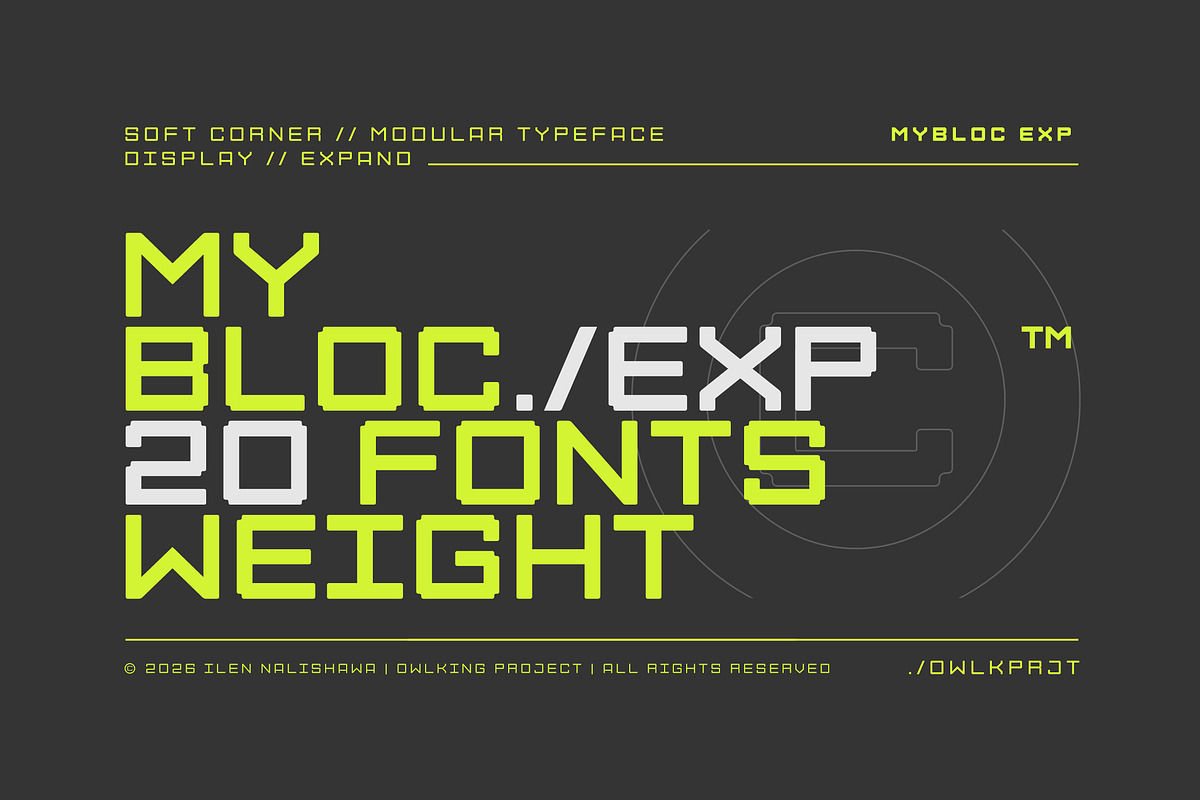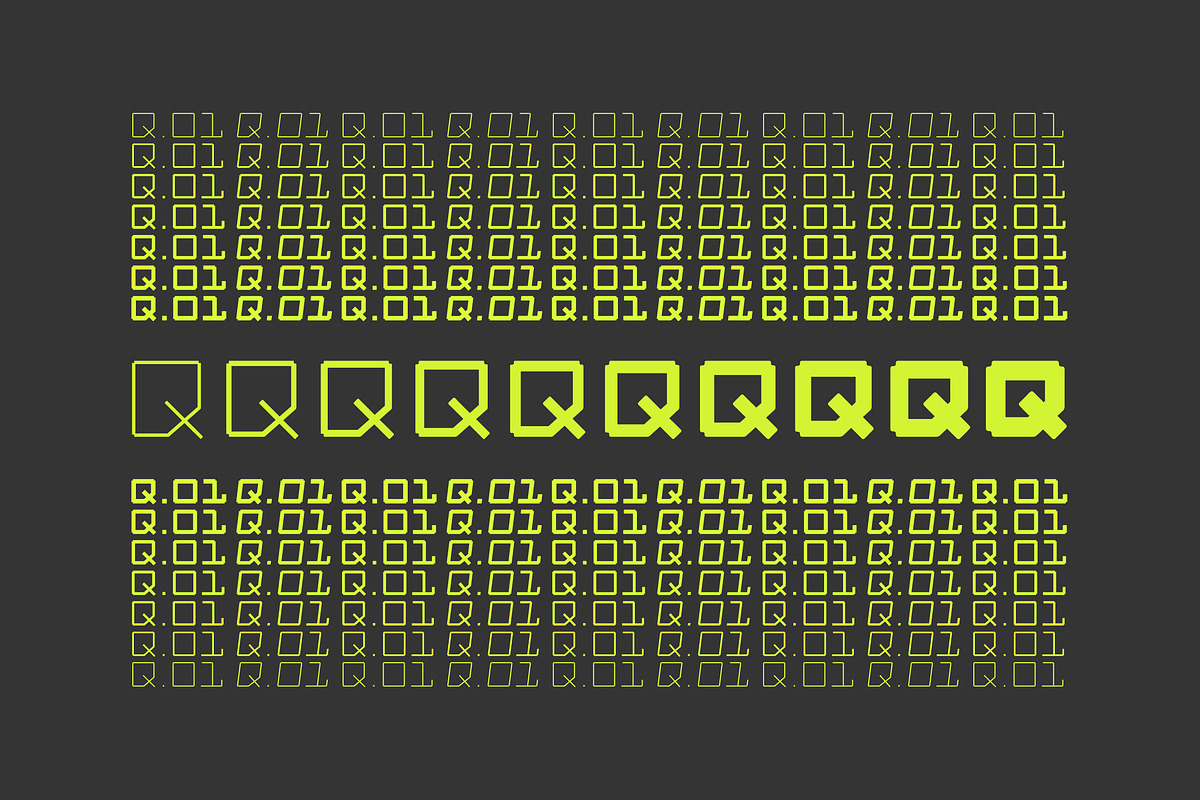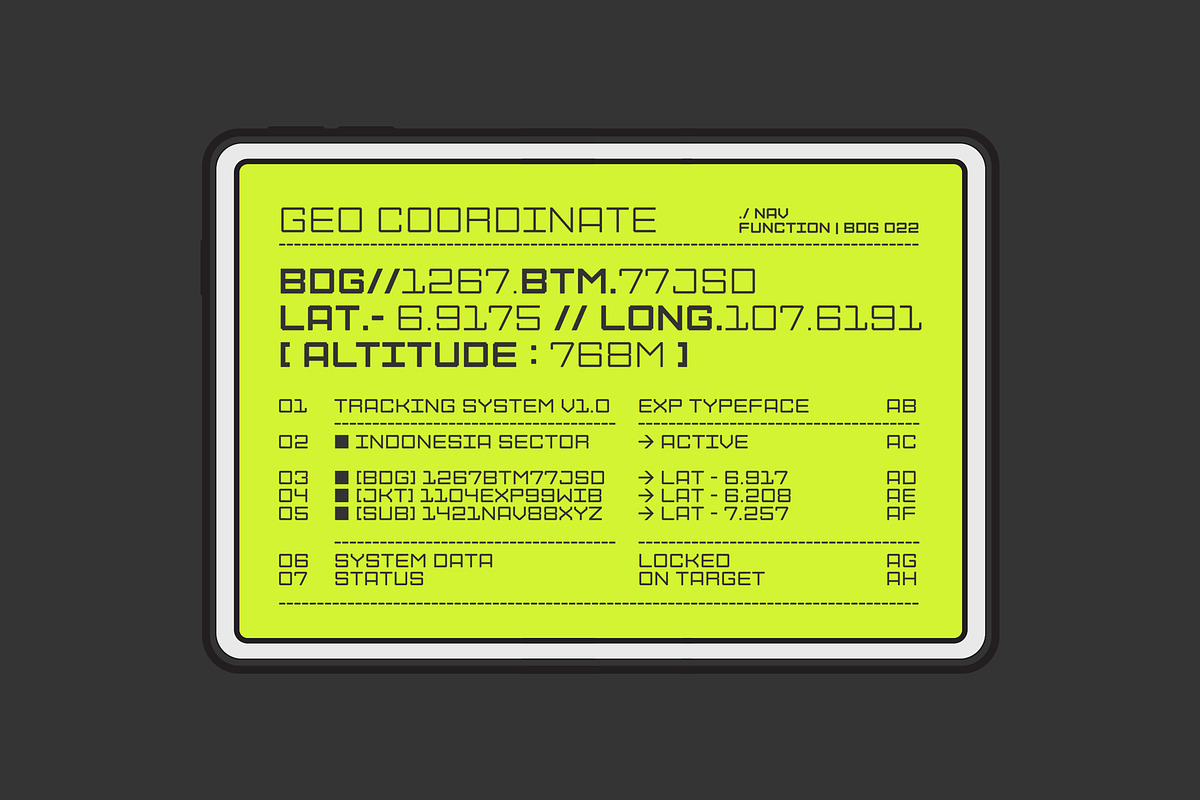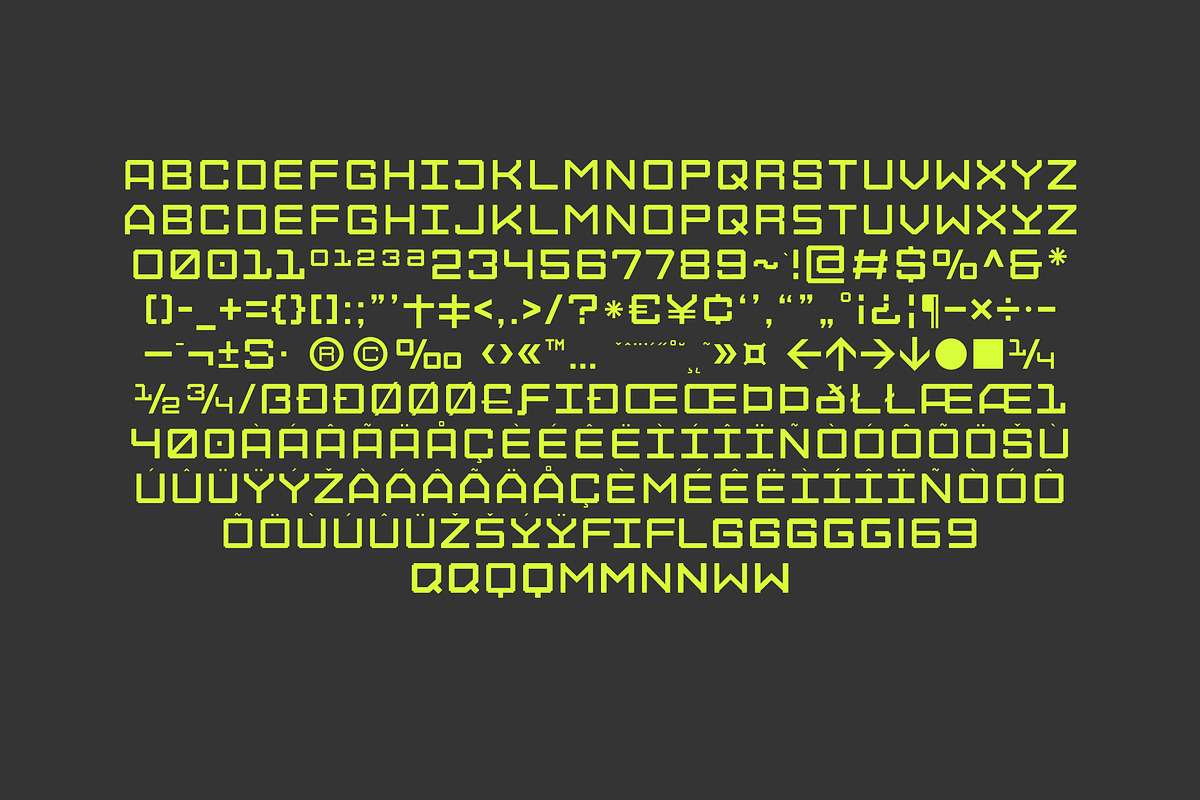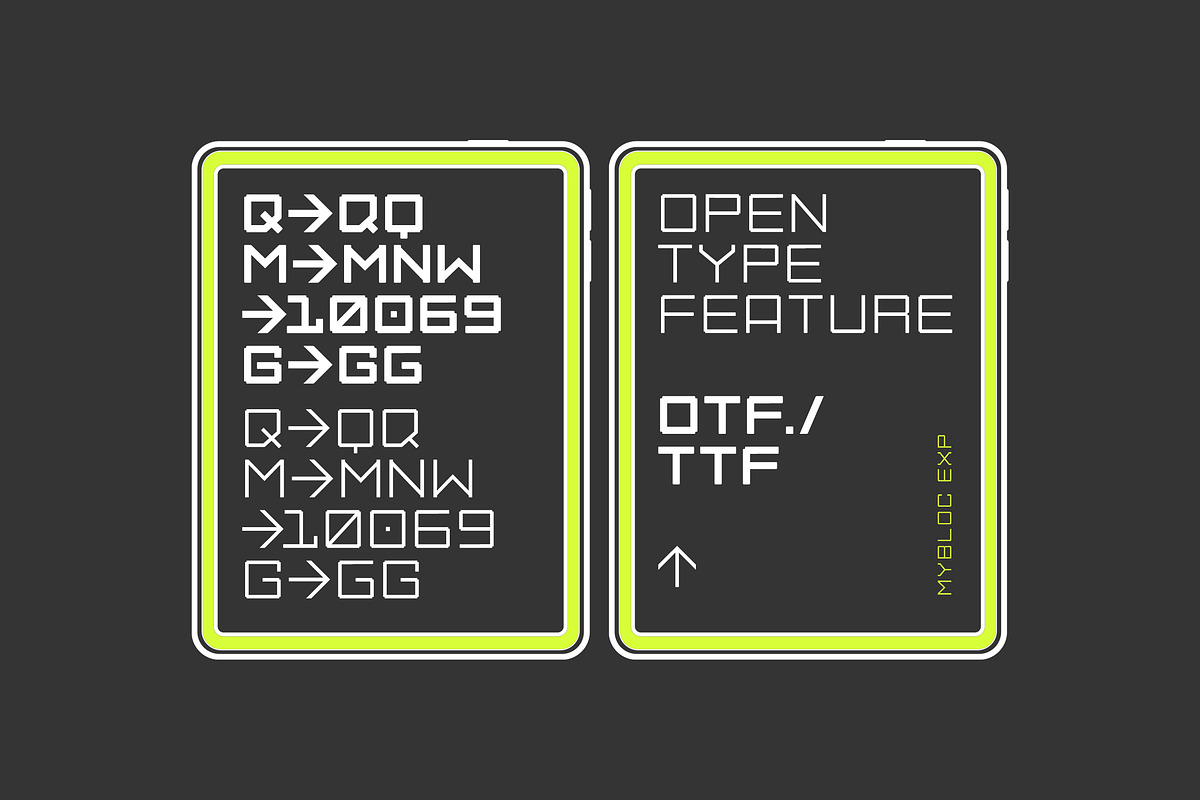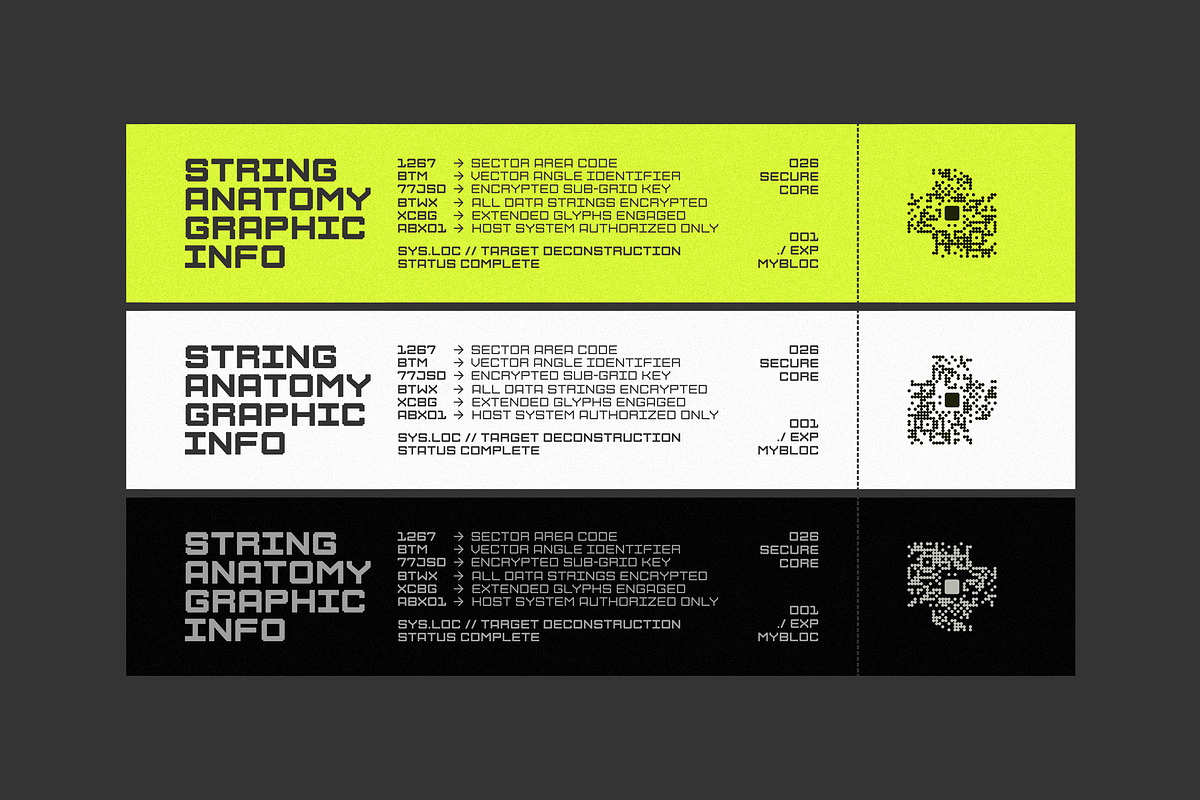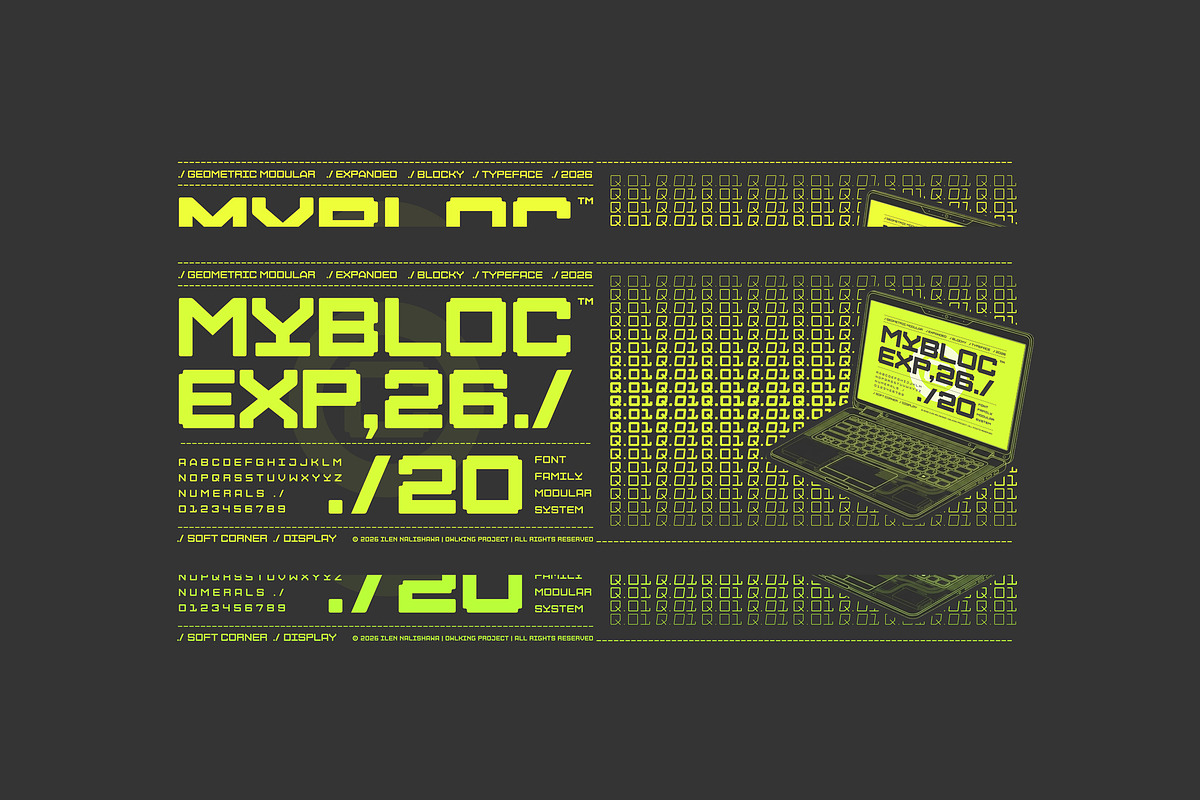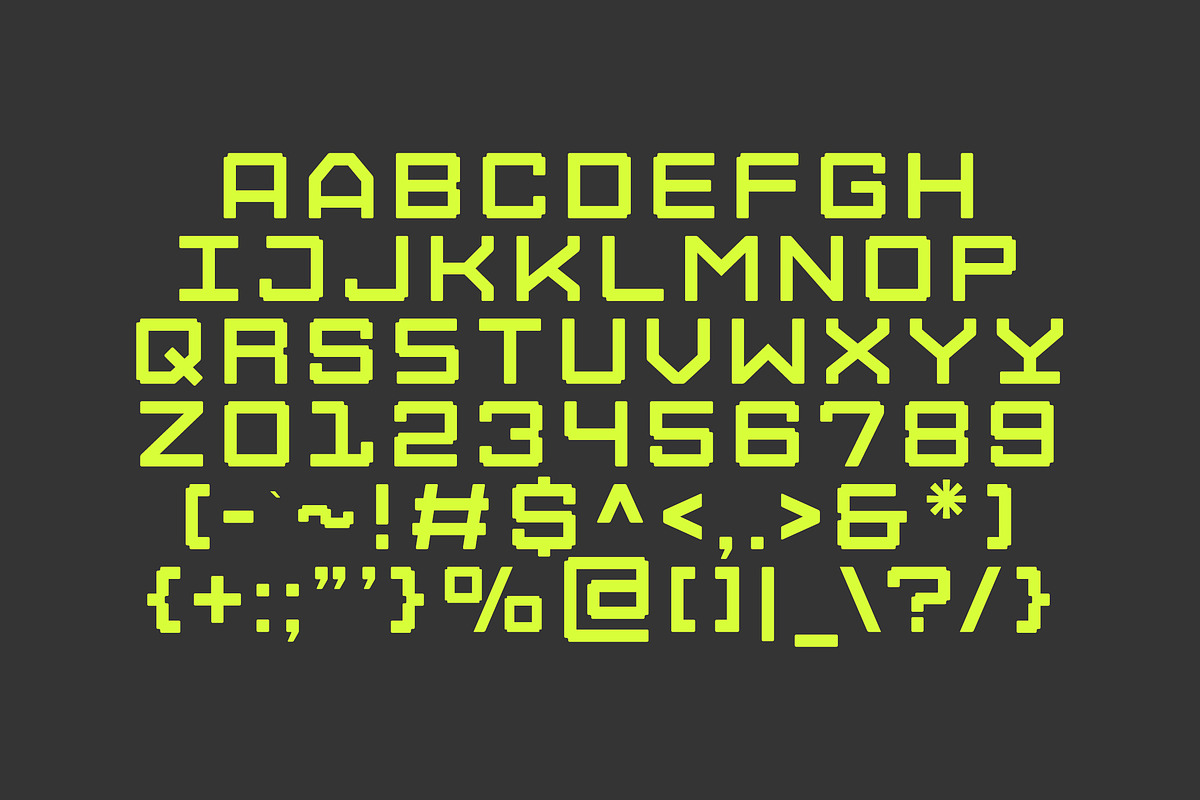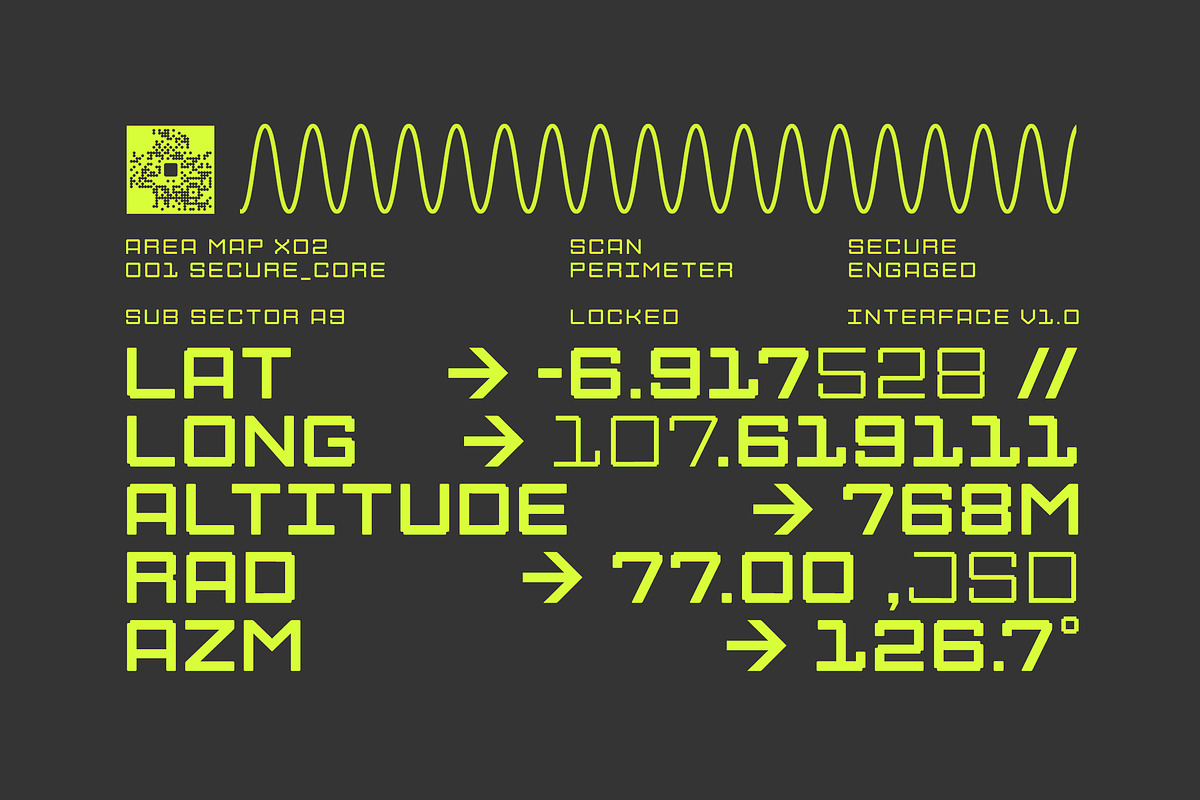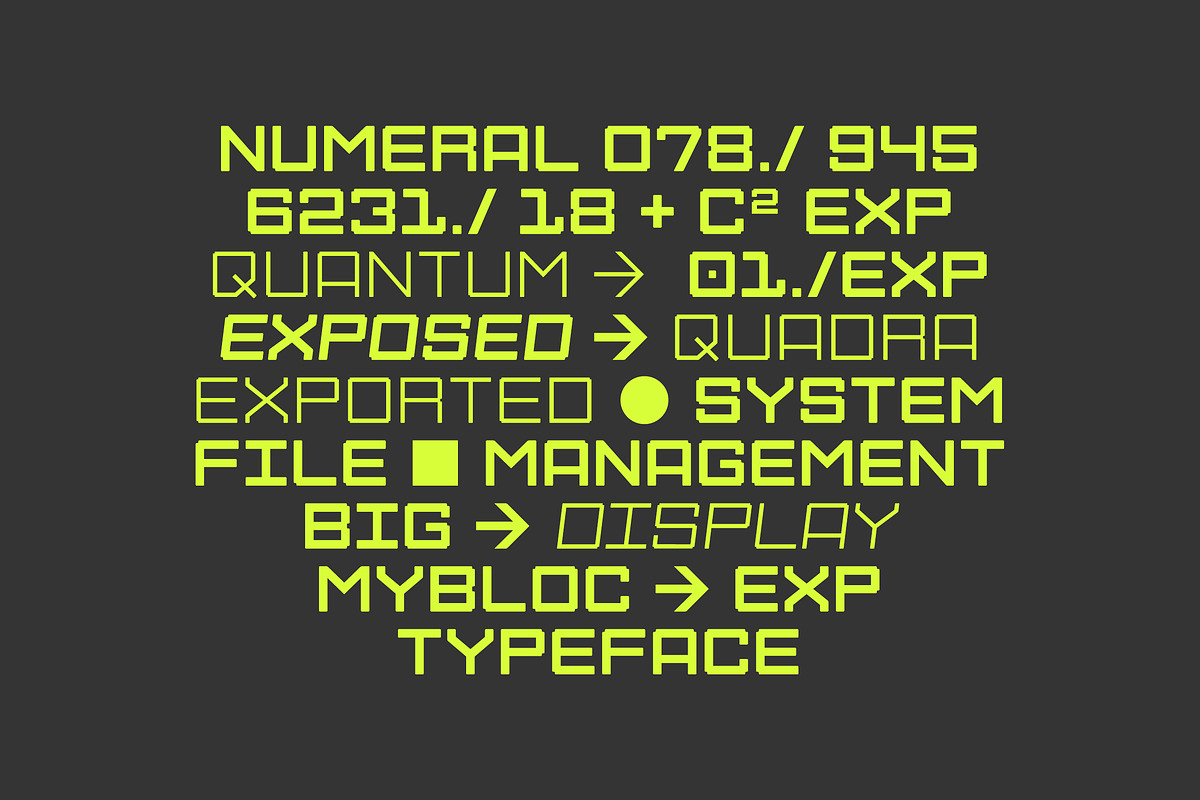
Mybloc EXP
Developed by Owlking Project designed by Ilen Nalishawa, Mybloc EXP is the highly anticipated, expanded evolution of the original Mybloc XYZ normal version. Engineered at the intersection of futuristic geometry and tactical readability, this comprehensive family features 20 versatile font weights built to dominate high impact display environments.
The Anatomy of Mybloc EXP strips away traditional sharp edges, introducing a meticulously calculated soft corner aestheticthat balances industrial rigidity with a sleek, premium, and humanized touch.
Each character is structured on a strict modular grid system, resulting in an authoritative visual rhythm perfect for next generation tech, Sci-Fi interfaces (HUD), gaming branding, and advanced graphic layouts.